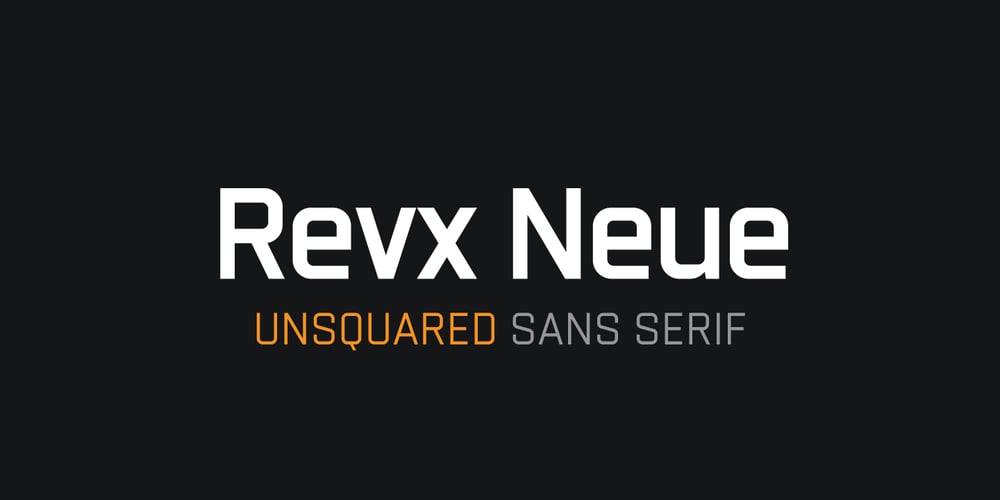
Revx Neue Font Family was designed by Abhishek Junghare and published by OneSevenPointFive. Revx Neue contains 14 styles and family package options. Revx Neue, an unsquared typeface is a modern sans serif. It contains 14 styles, 7 uprights, and the corresponding italics. The OpenType Latin Pro character set is crafted with powerful OpenType features, alternative glyphs, kerning pairs, and more which makes the font well featured. The typeface is suitable for all platforms (web, display, print, etc.). Revx Neue blends beautifully into your designs.